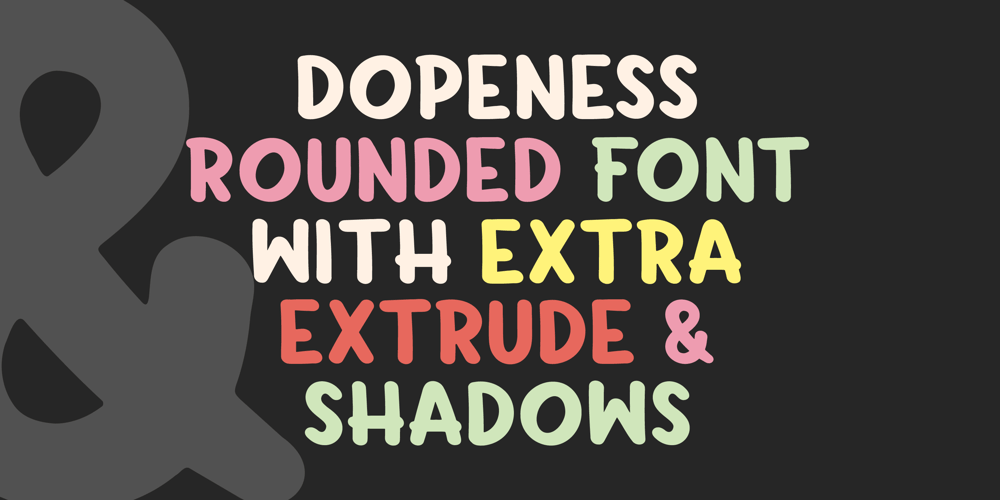
Dopeness Font Family was designed by Stefie Justprince and published by Crumphand. Dopeness contains 3 styles and family package options. Hello, here is it the new Rounded fonts Dopeness. It comes with extra Extrude and Shadows.Easy to read, easy to access the extrude and shadows.What’s Included Inside The Fonts ?UppercaseLowercaseNumeralsSymbolsPUA EncodedEuropean MultilingualExtrude ( Extra Style )Shadows ( Extra Style )Thank you, Regards!